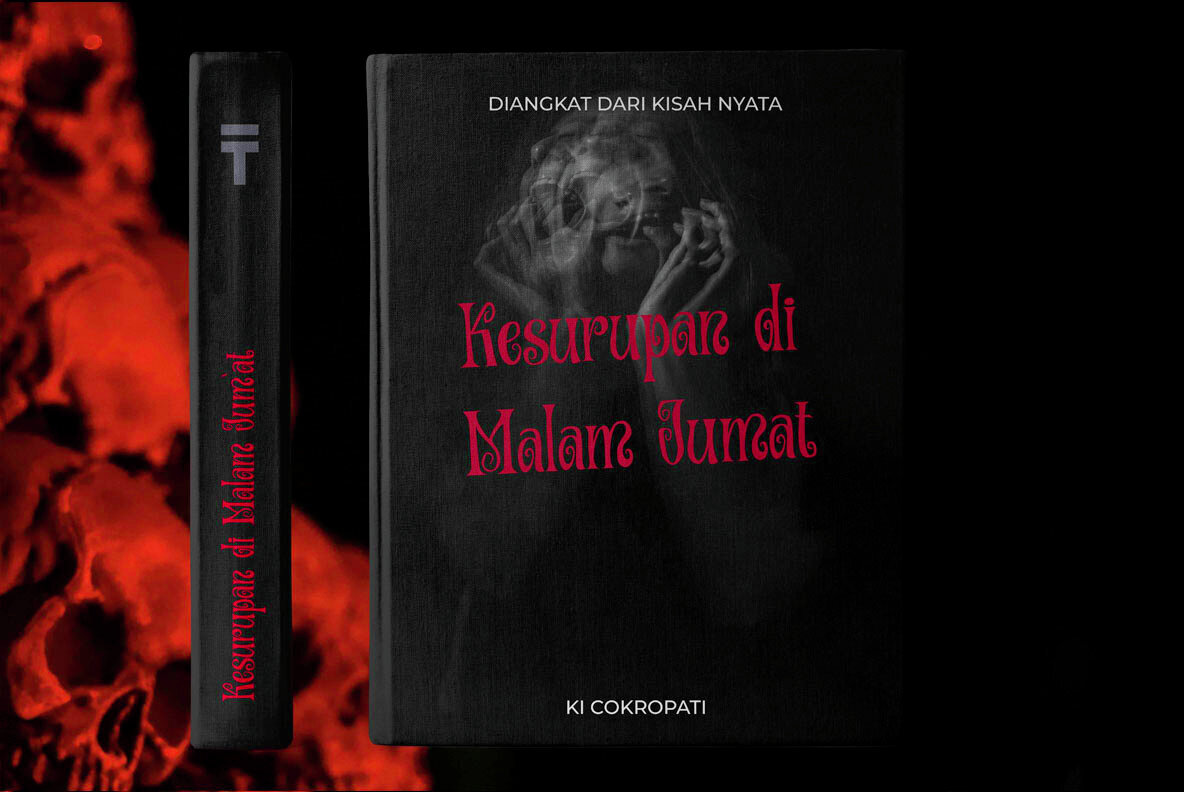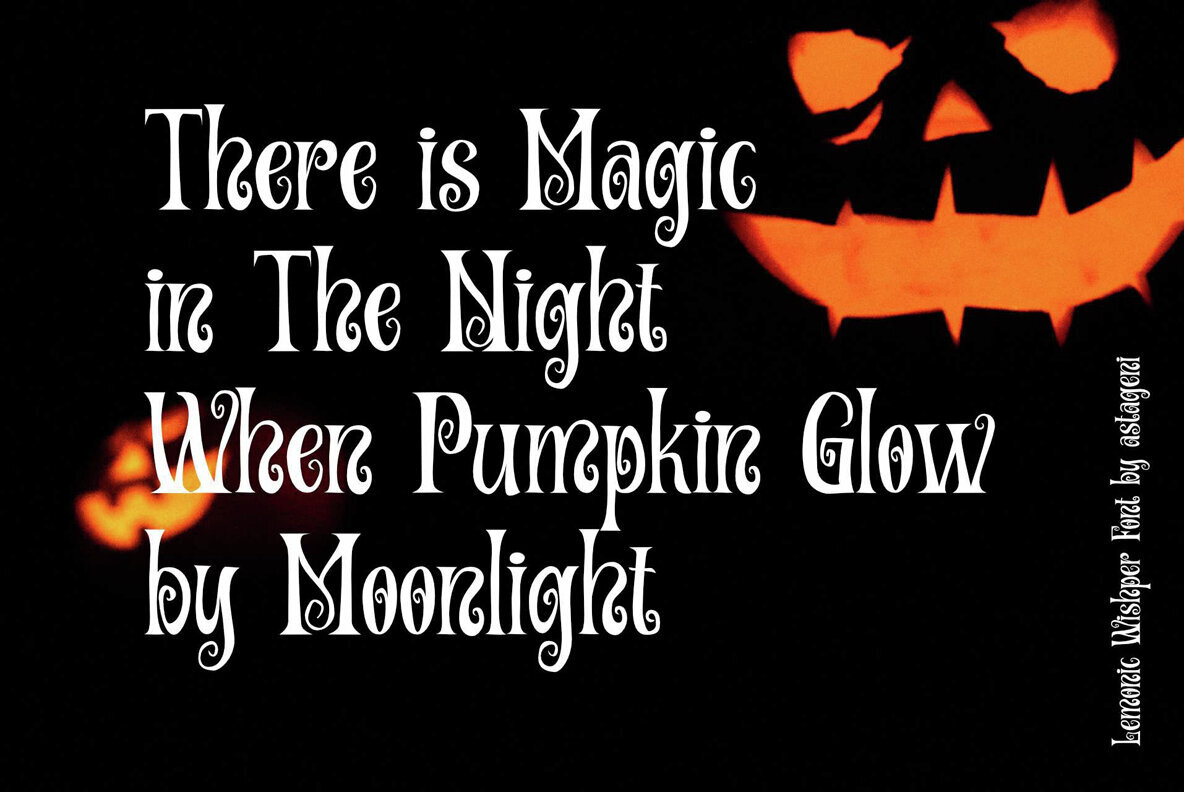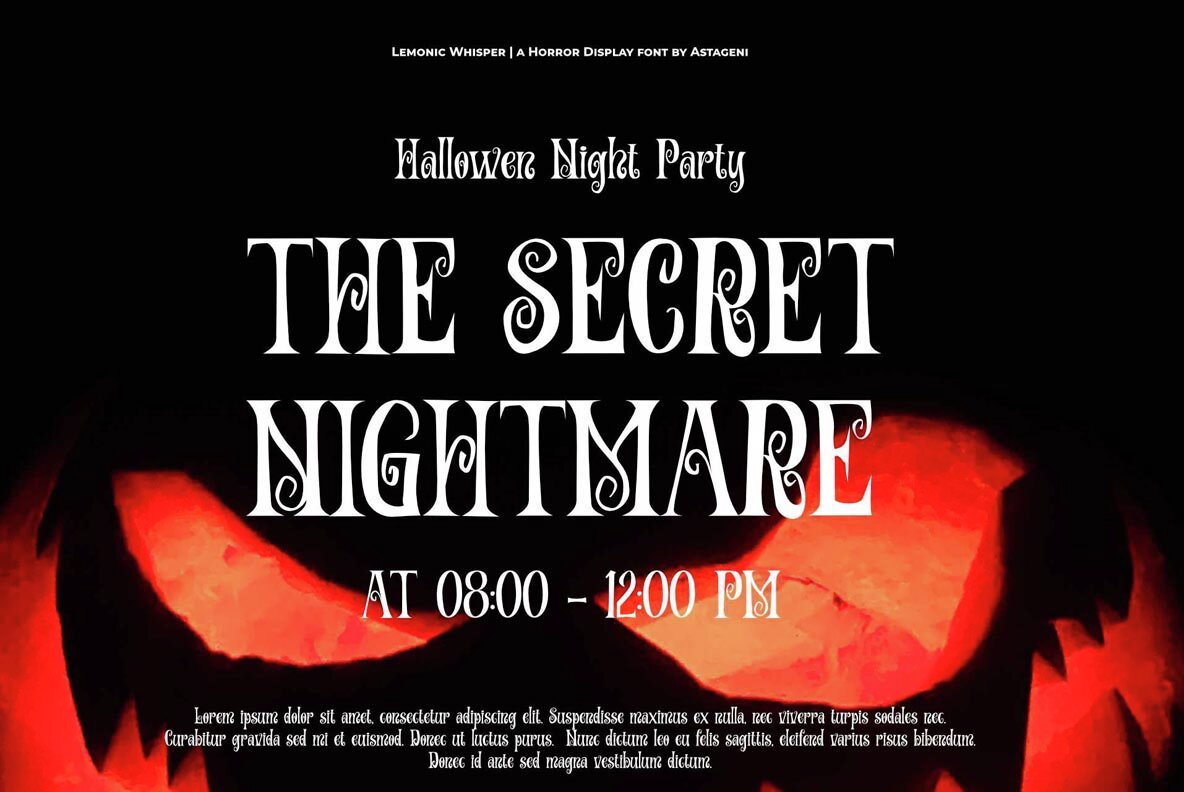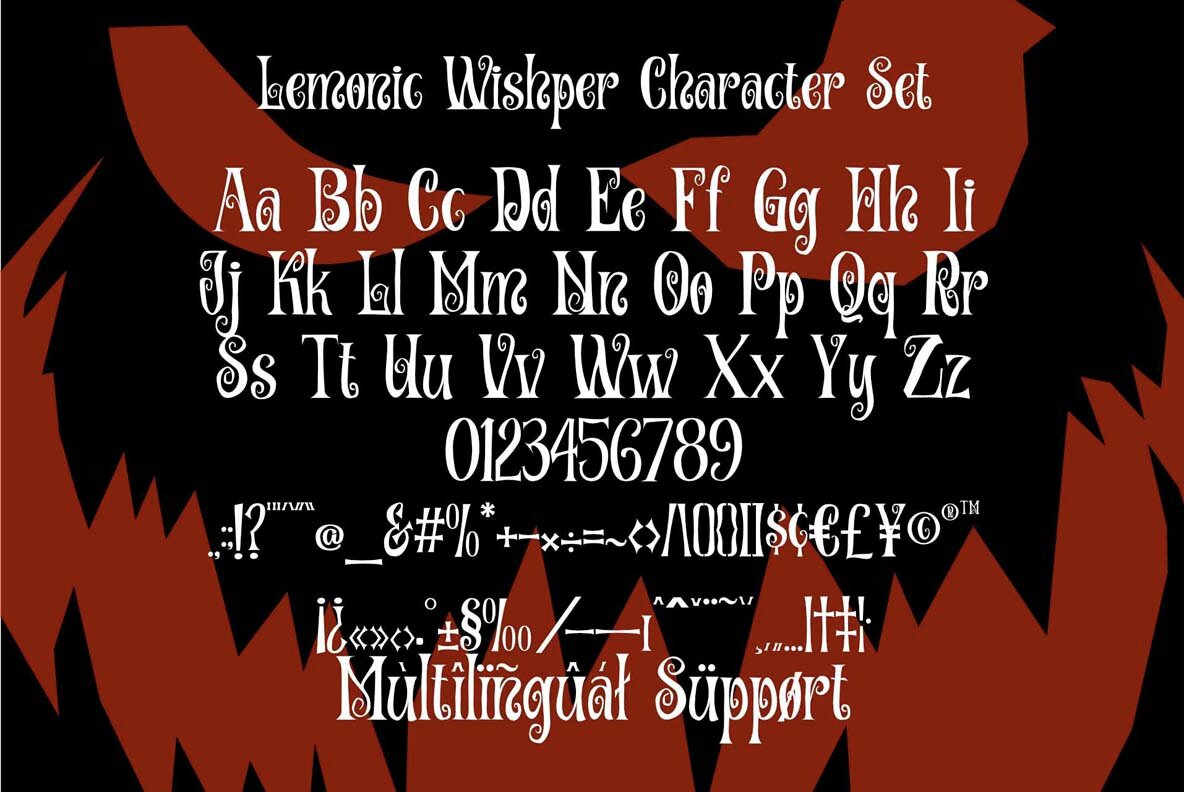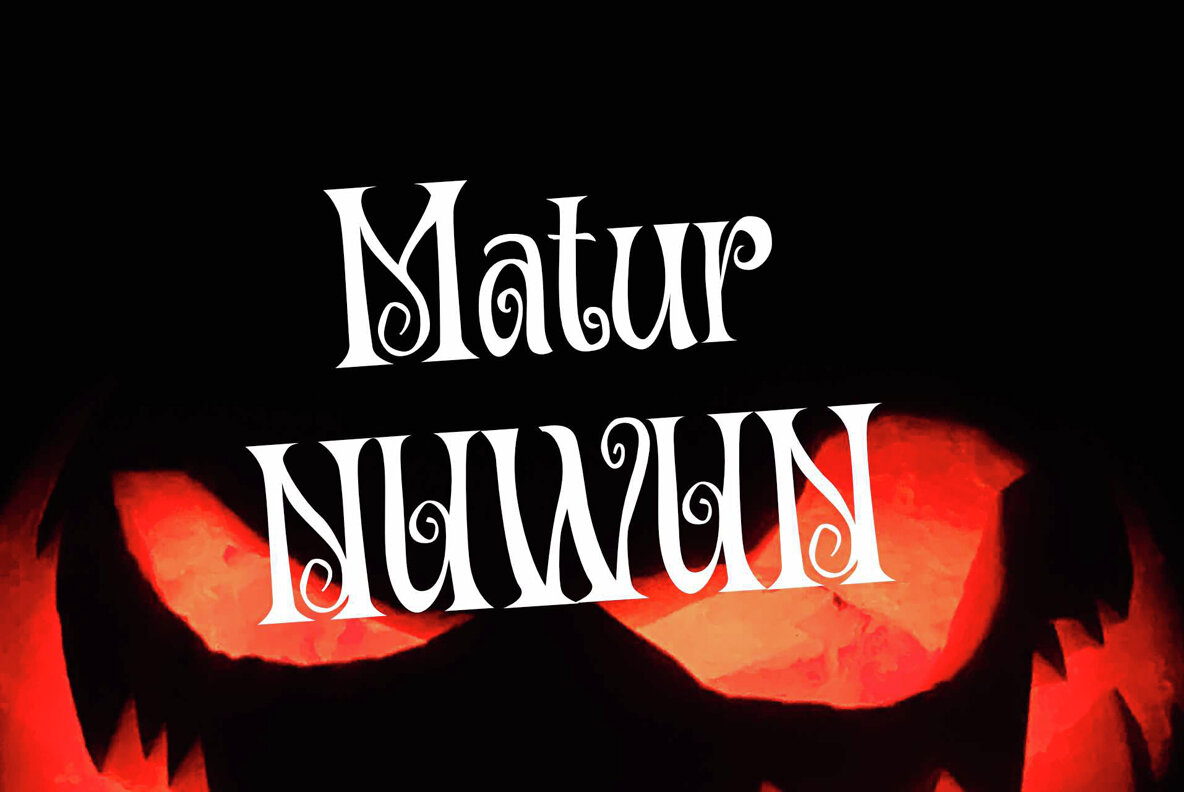
Lemonic Whisper Font
Lemonic Whisper
Lemonic Whisper Typeface captures the eerie essence of Halloween with its uniquely distorted character design. Ideal for setting the mood during October and November events, this typeface enhances any horror-themed project with its distinct style. Lemonic Whisper is perfect for adding a spooky touch to various design projects, including: Designed to simplify your creative process, Lemonic Whisper is user-friendly across both design software and general applications. Its characters and glyphs are fully supported by Unicode (PUA), ensuring versatility in your projects.Lemonic Whisper: A Haunting Typeface for Halloween